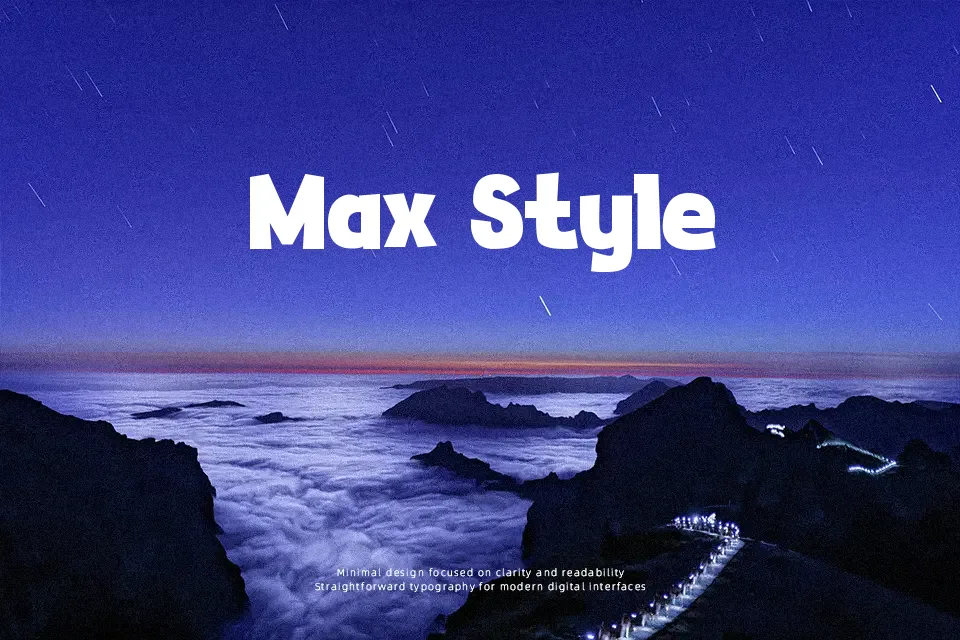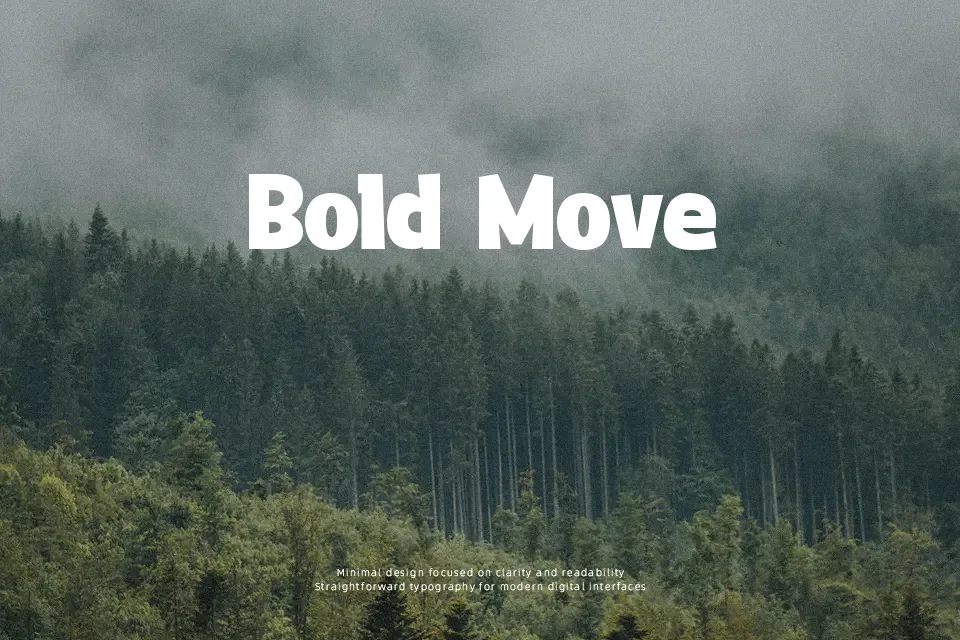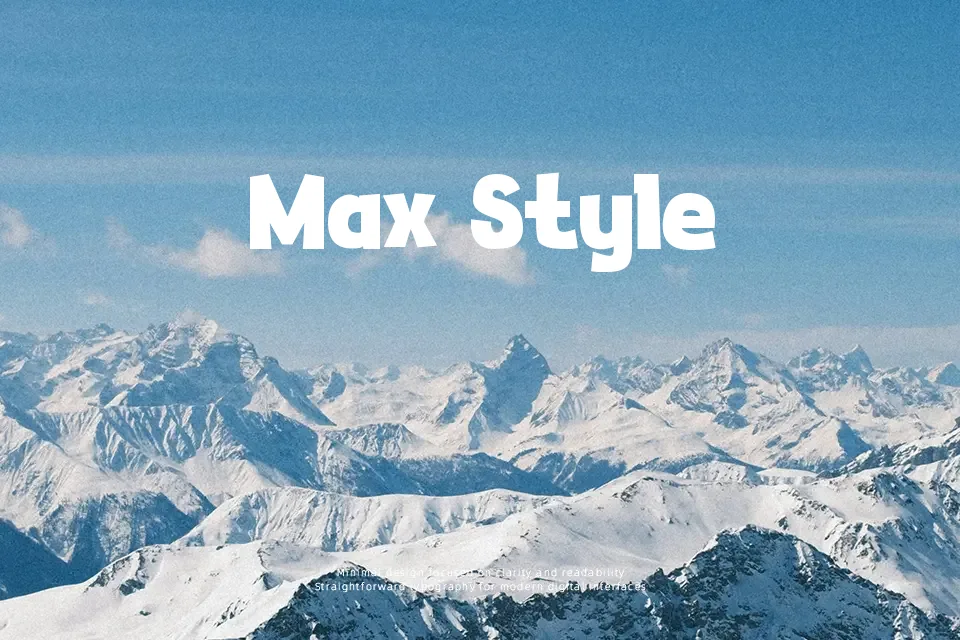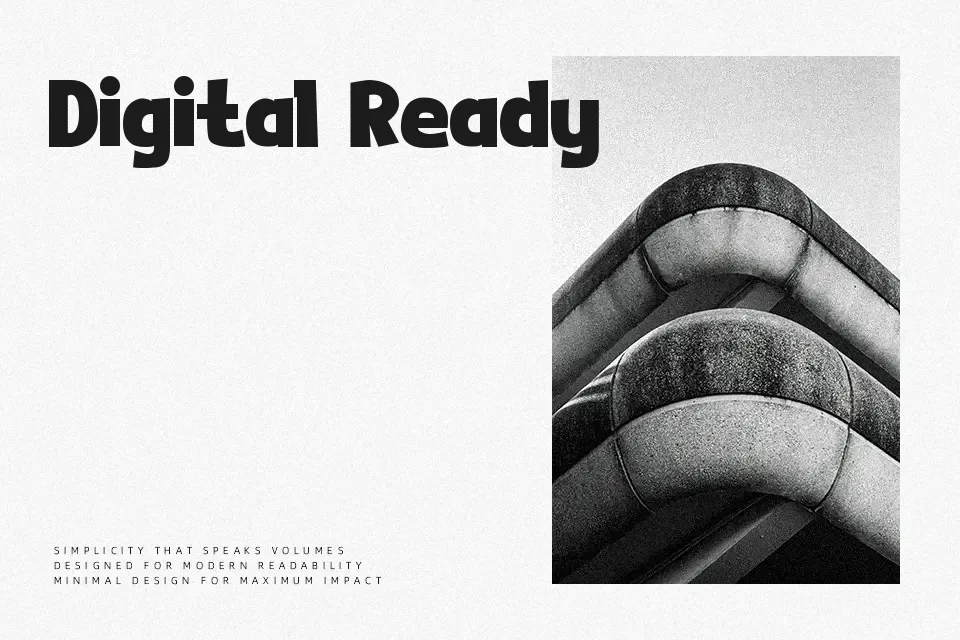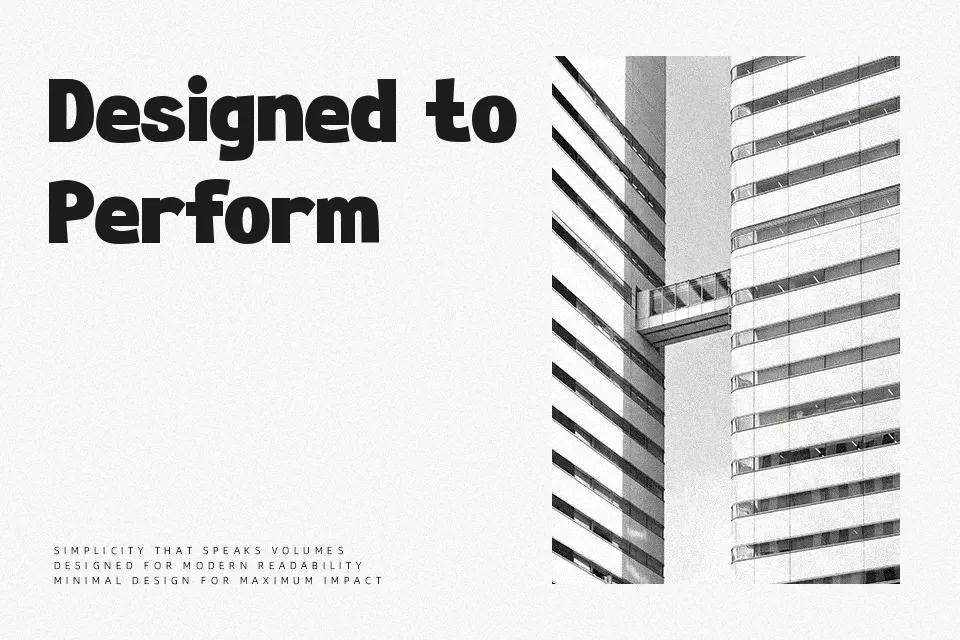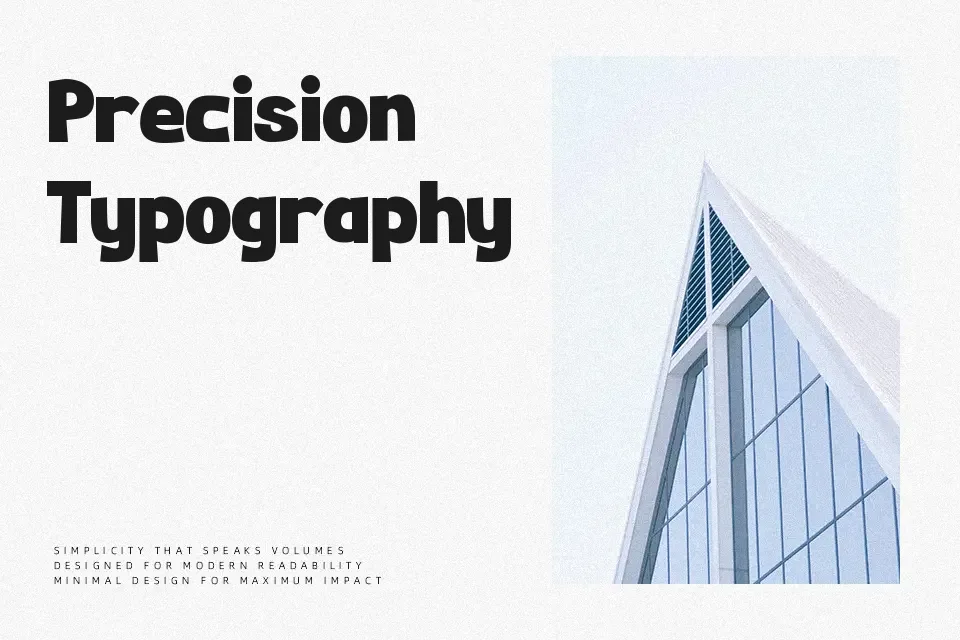
Onacona Font
Onacona Font uses heavy rounded strokes and simplified sans serif letterforms to create a friendly, cartoon-like display style. The characters appear broad and evenly weighted, with soft curves that give short words a clear, compact rhythm. Spacing is suited to bold headings rather than dense copy, while the sturdy proportions help individual letters remain visible in posters and game-related graphics. It works particularly well for youthful labels, title screens, and expressive logo text. The thick forms maintain clarity in large headlines, but their decorative personality makes extended paragraphs and small supporting text less comfortable to read.
Best For: children’s game titles,playful product packaging,poster headlines,youth-focused logos
Not Ideal For: long paragraph text,legal documents,small interface labels,dense editorial layouts
Perfect for gaming, headline, and logo, with a bold and cartoon style.